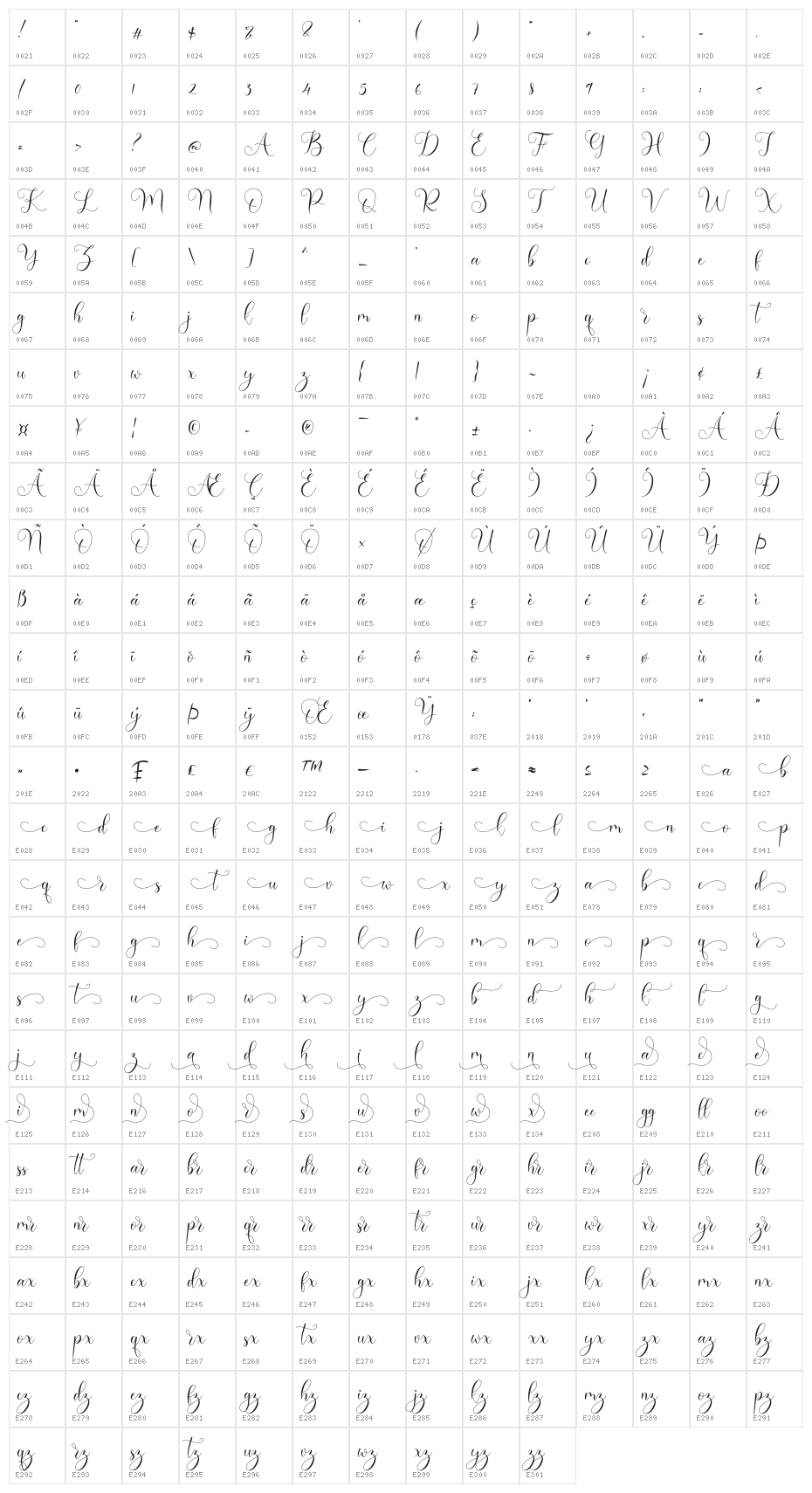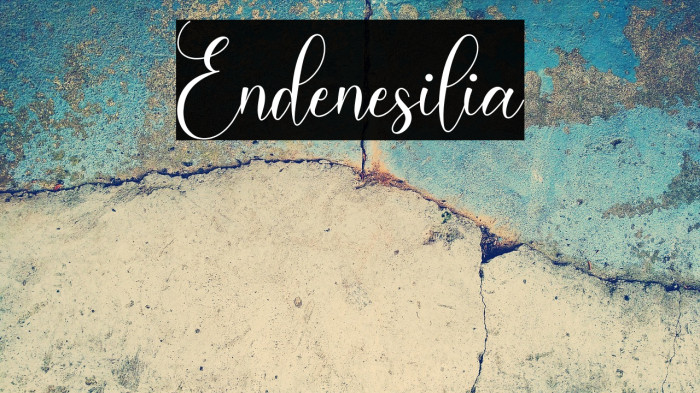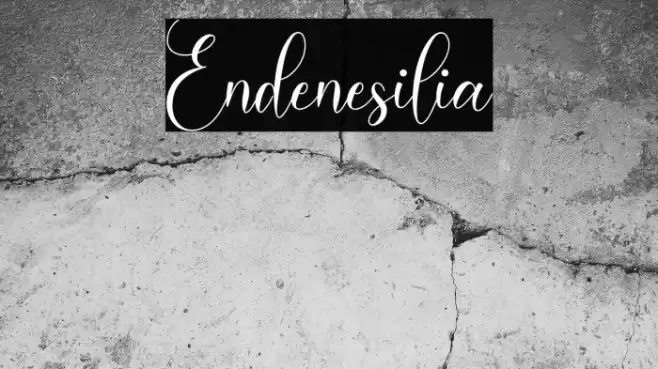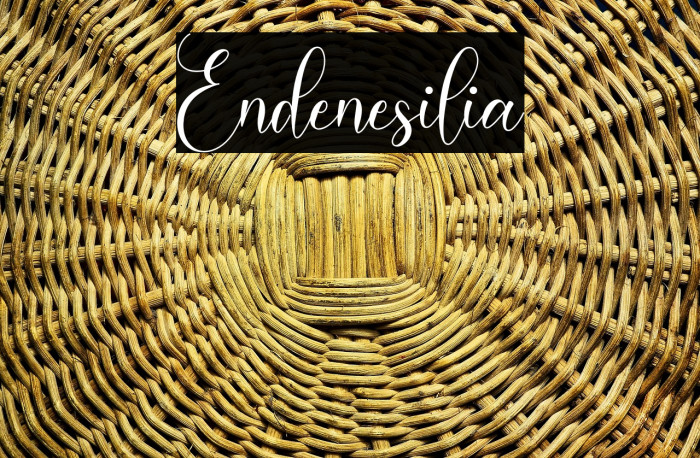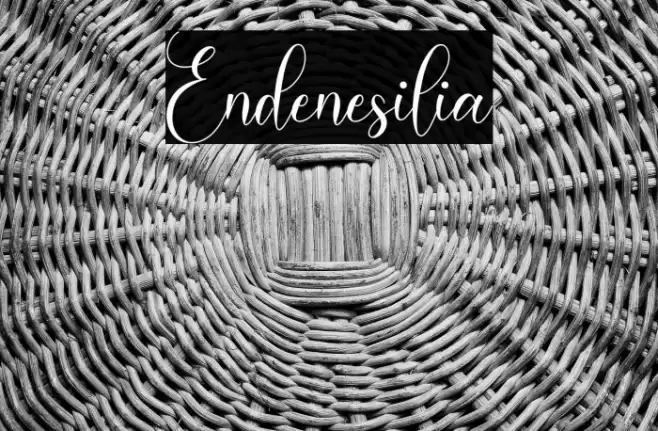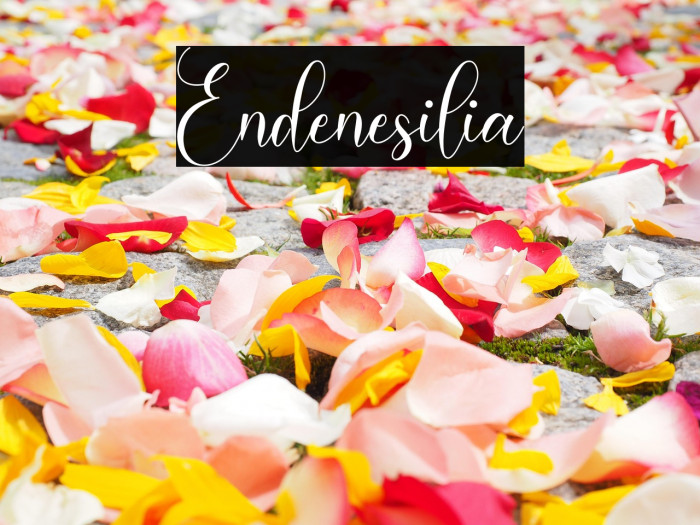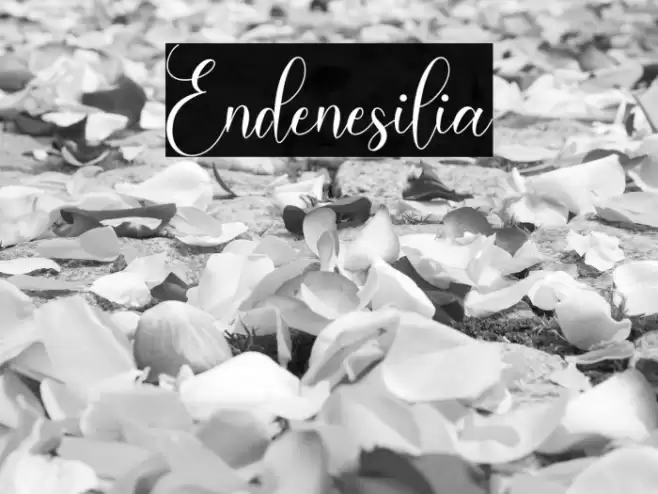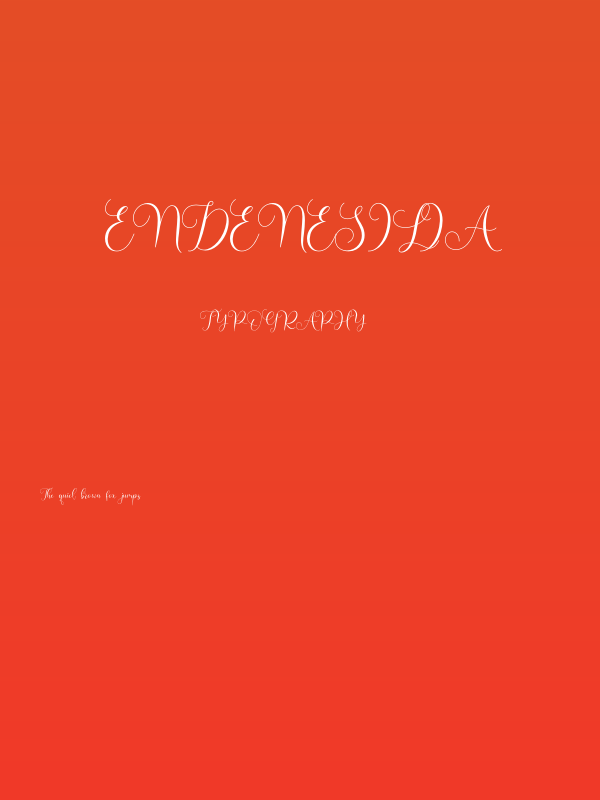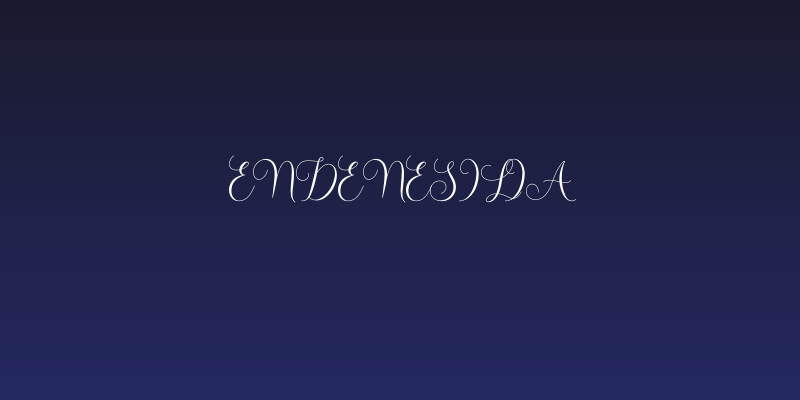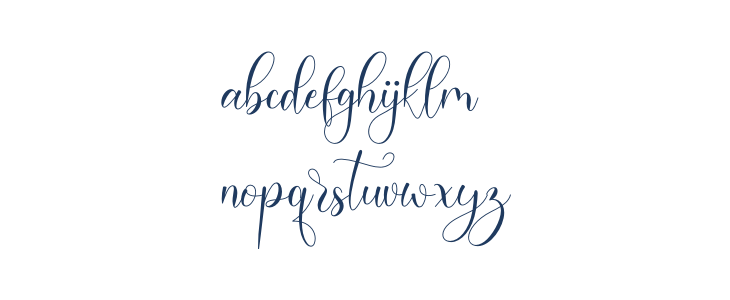
Endenesilia Font
Endenesilia Description
This elegant script font features graceful, flowing lines and intricate swashes that give it a sophisticated and artistic appearance. The uppercase letters are adorned with elaborate loops and curves, while the lowercase letters maintain a fluid and connected style, enhancing the font's overall charm. The numerals are consistent with the font's delicate aesthetic, providing a cohesive look across all characters. The special characters are thoughtfully designed, complementing the font's ornate style. This font is perfect for projects that require a touch of elegance and refinement.
Overall StyleElegant, Artistic
Use CaseLogos, Invitations, Decorative text
Proposed ProjectsIdeal for wedding invitations, elegant branding, high-end packaging, and artistic posters.